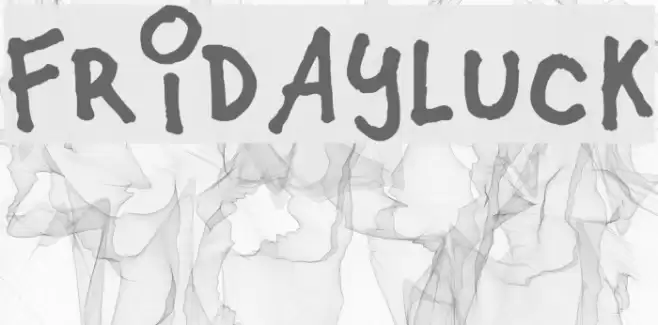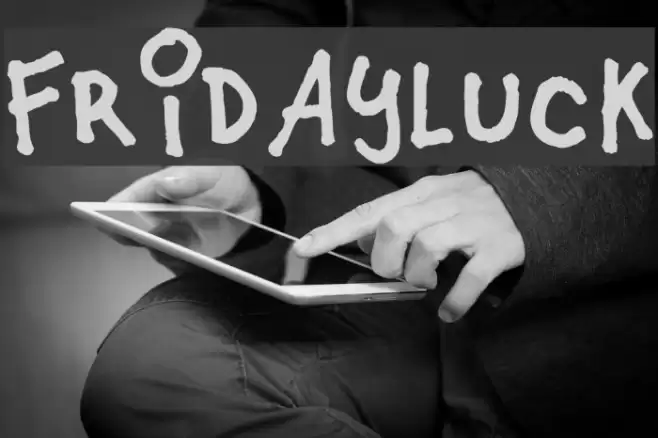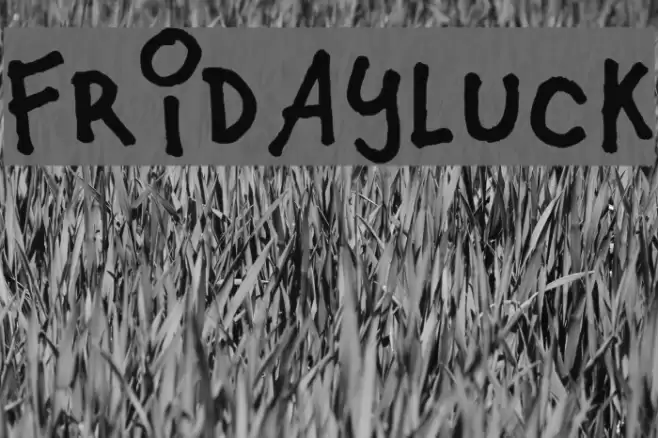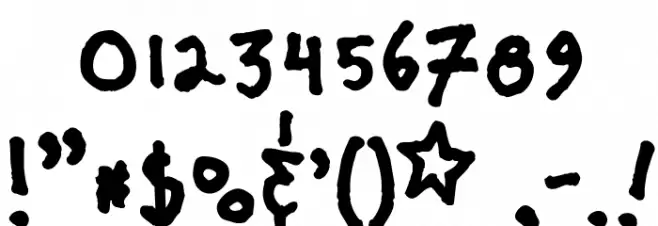
Fridayluck Font
Fridayluck Description
This font exhibits a playful and bold handwritten style, characterized by its irregular and dynamic strokes. The letters have a casual, almost whimsical appearance, with varying thickness and a slightly uneven baseline that adds to its charm. The uppercase and lowercase letters maintain a consistent style, with rounded edges and a slightly exaggerated flair on certain characters. The numerals and special characters follow the same playful theme, making the font suitable for creative and informal applications. Its unique style captures attention and conveys a sense of fun and creativity.
A bold, playful handwritten font with dynamic strokes and a whimsical appearance from Comic fonts.
- Proposed Projects: Ideal for children's book covers, playful branding, greeting cards, and creative posters.